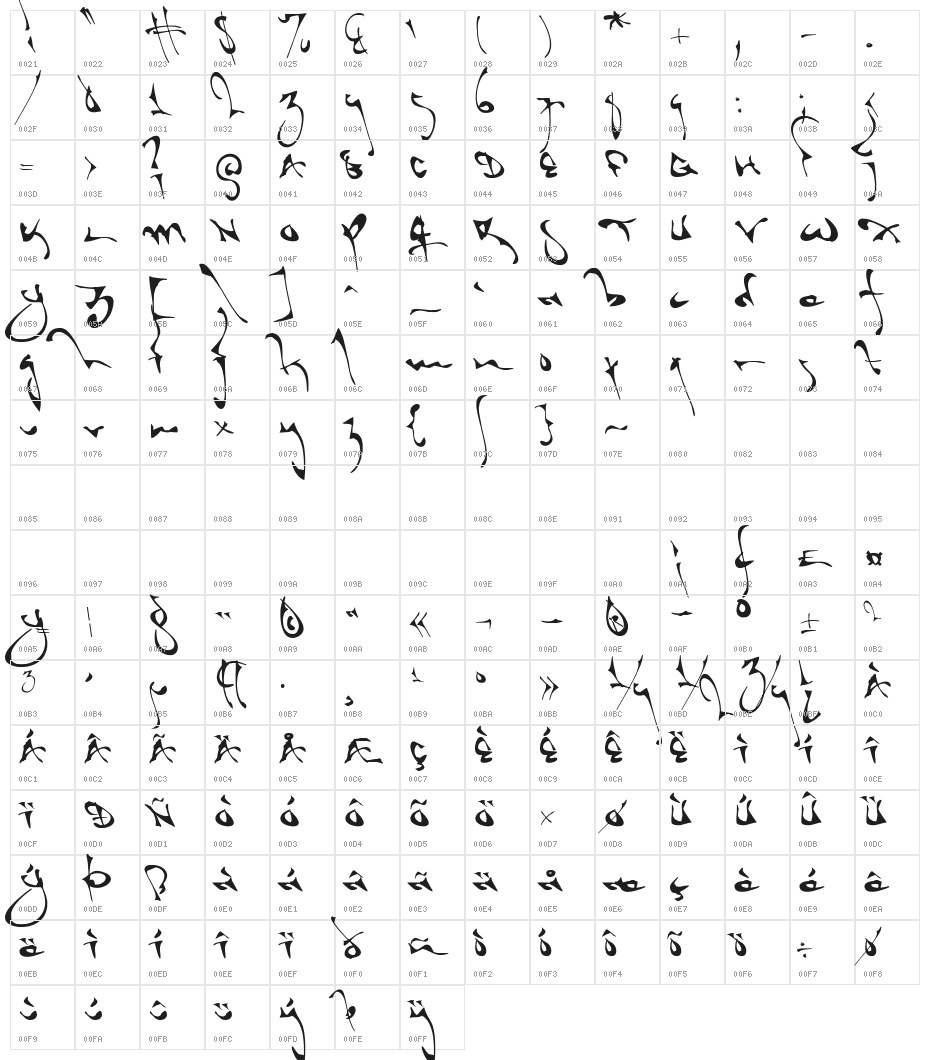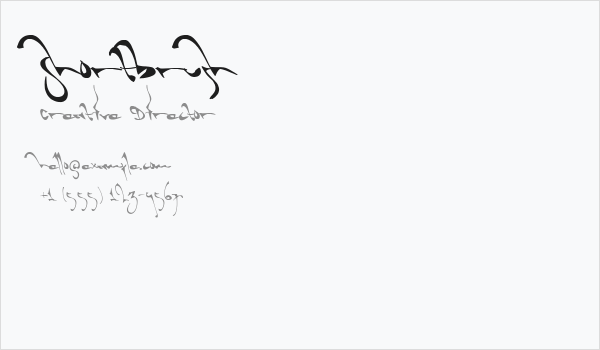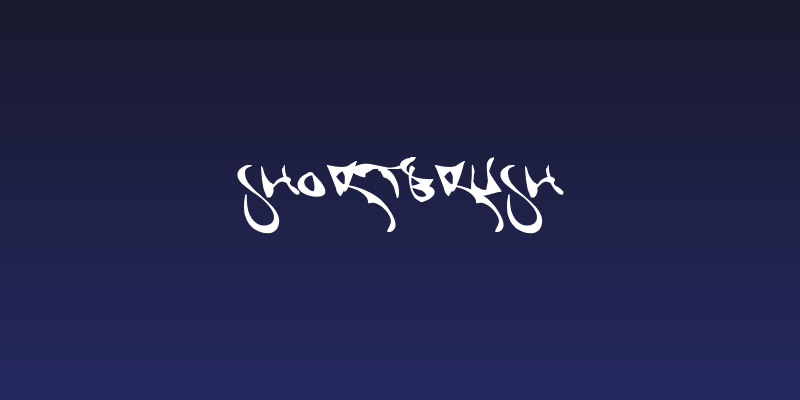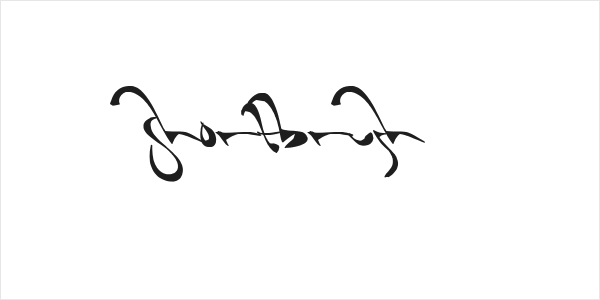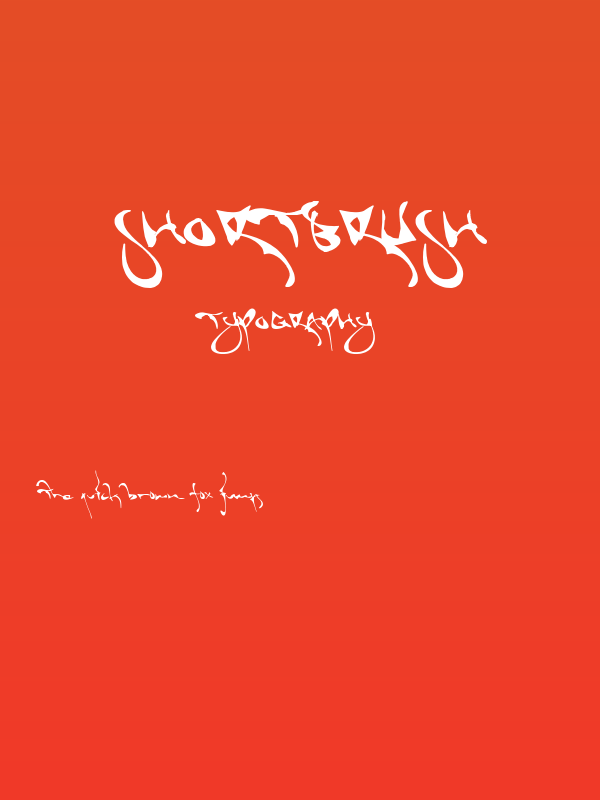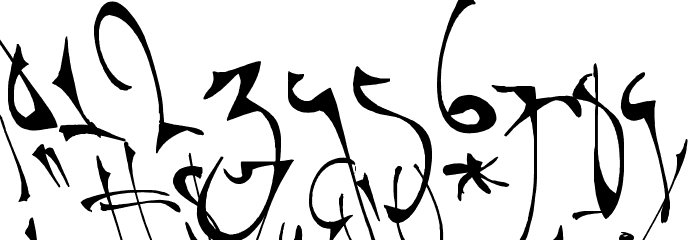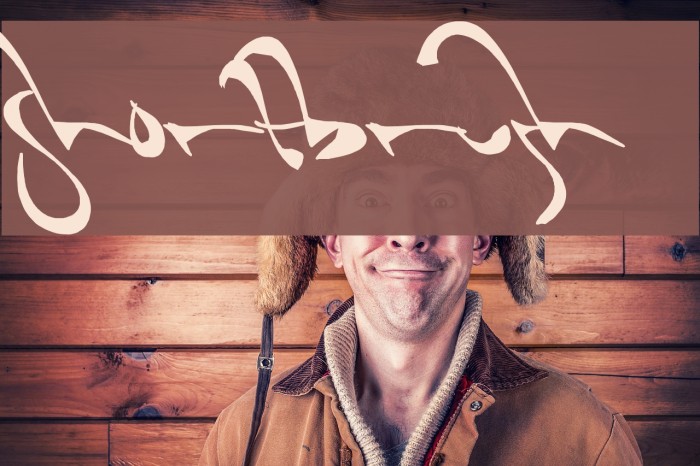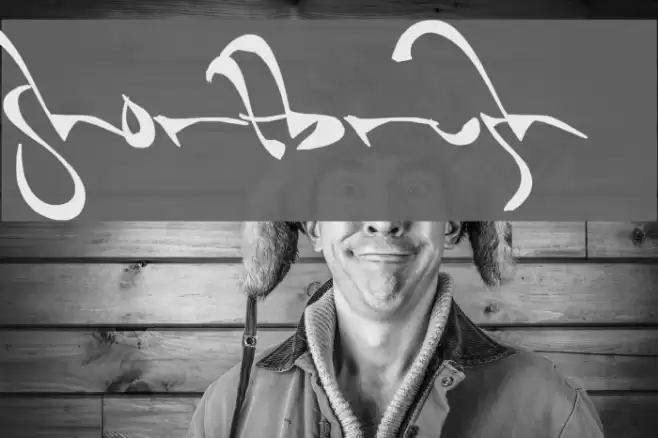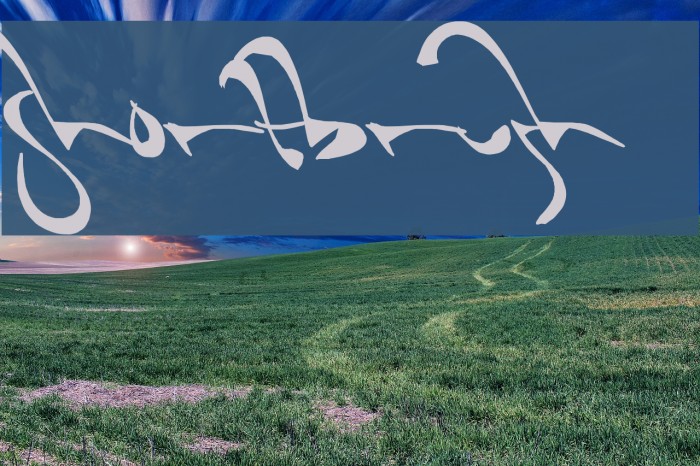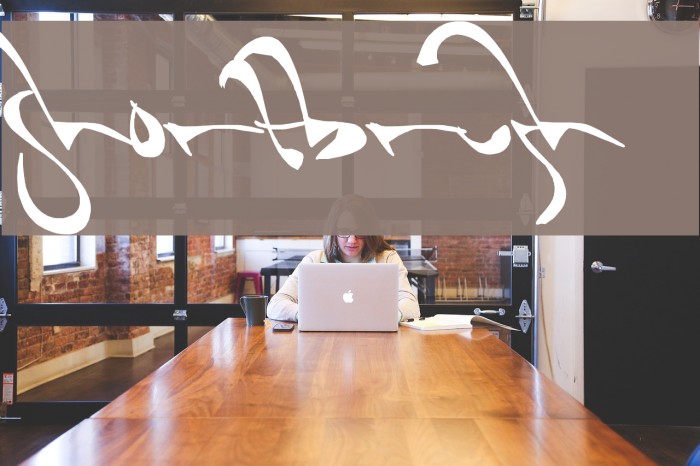
Shortbrush Font
Shortbrush Description
This font exhibits a highly expressive and artistic style, characterized by its fluid, brush-like strokes that create a sense of movement and energy. The letters are crafted with a dynamic flair, featuring varying thicknesses and sharp angles that contribute to its unique and bold appearance. The uppercase and lowercase letters maintain a consistent design ethos, while the numbers and special characters are equally stylized, adding to the font's cohesive look. This font's distinctive style makes it ideal for creative projects that require a touch of personality and flair.
| Overall Style | Artistic, Expressive |
| Use Case | Logos, Posters, Creative Branding |
| Proposed Projects | Ideal for artistic projects, branding, posters, and invitations that seek to convey creativity and individuality. |